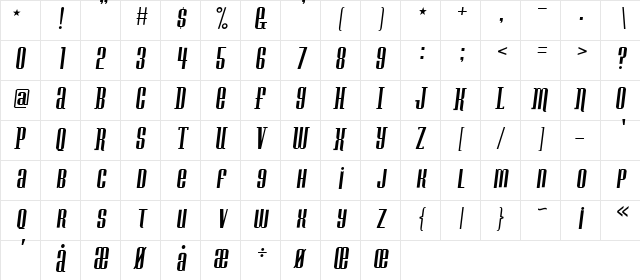
Konspiracy Theory slant Regular
Design Context for Konspiracy Theory slant
Konspiracy Theory slant is a composed and adaptable typeface that performs quietly and consistently across a wide range of design contexts.
Pro Tip: Use Konspiracy Theory slant in both headline and body roles to test its range before committing to a single application.